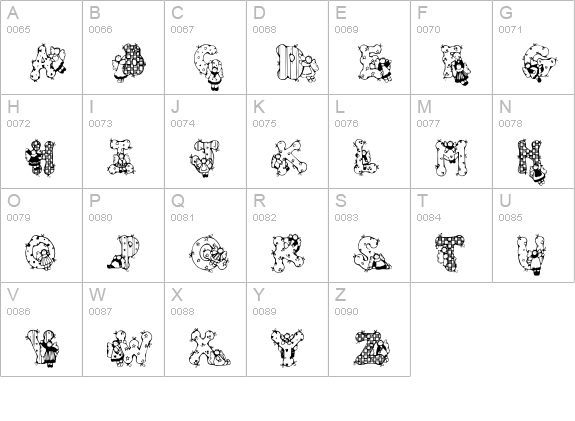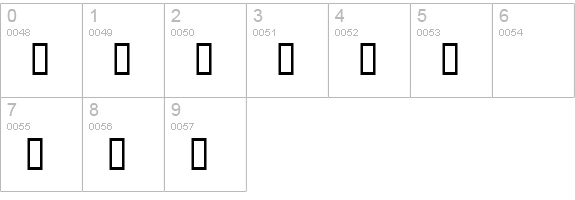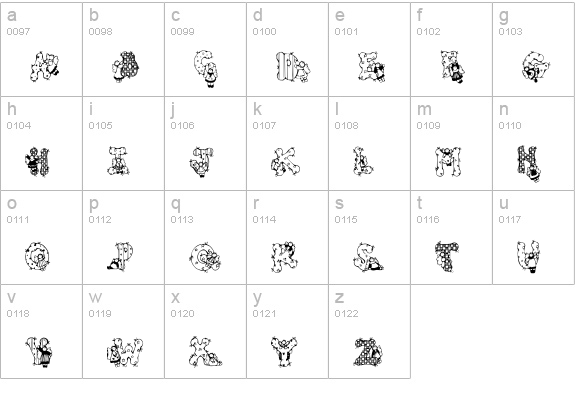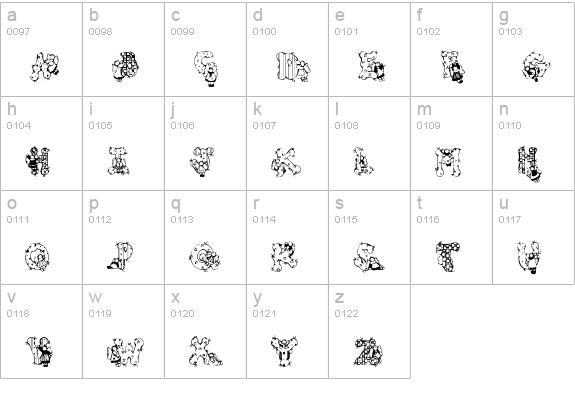
Patchwork Angel Font Details
Introducing Patchwork Angel, a captivating and ethereal font that will transport you to a world of whimsical beauty. This font embodies the delicate and intricate nature of a patchwork quilt, with its interwoven letters and charmingly uneven edges. Each letter is uniquely crafted, like a lovingly hand-stitched piece of fabric, creating a truly one-of-a-kind typeface. Patchwork Angel is a font that exudes a sense of warmth and nostalgia, evoking memories of cozy evenings spent by the fireplace, wrapped in a quilt made with love. Its soft, rounded curves and gentle strokes add a touch of elegance and grace to any design project, making it perfect for invitations, greeting cards, branding, and more. What makes Patchwork Angel even more enchanting is that it is freely available to download at FontsMarket.com. This means that you can bring a piece of this ethereal beauty into your designs without any cost. Whether you're a professional designer or a creative enthusiast, this font is a delightful addition to your collection. With its versatility and charm, Patchwork Angel is a font that will inspire and captivate your audience. So, embrace the artistry of patchwork and let this font weave its magic into your next creative endeavor. Download Patchwork Angel now and unleash your imagination with its free-spirited elegance.